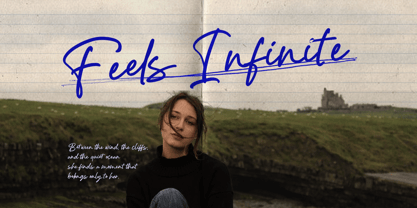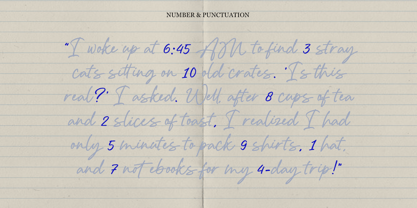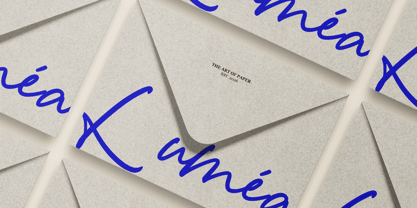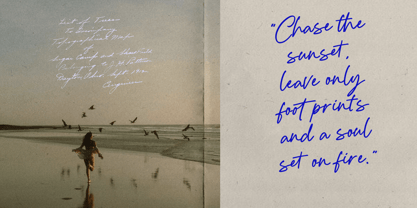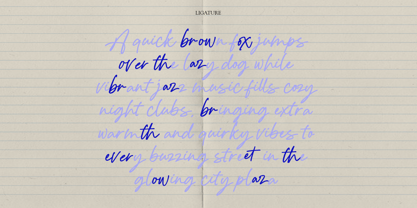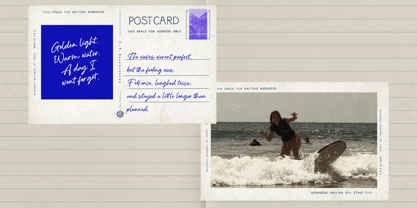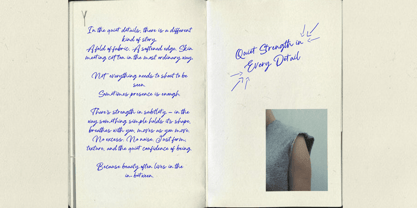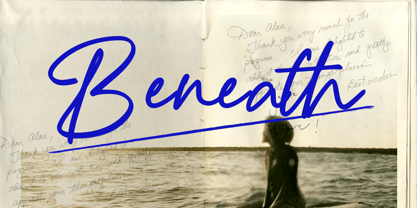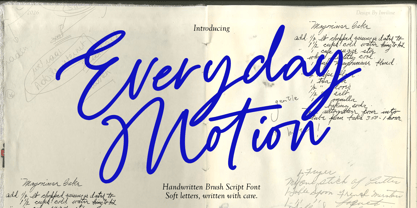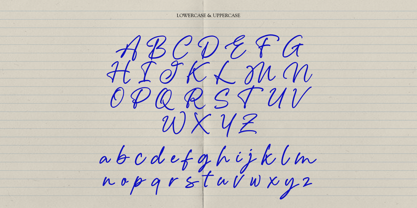
Everyday Motion
by Inviline
Everyday motion is a handwritten brush script font with soft, flowing strokes and a natural rhythm that feels warm, expressive, and personal; you get complete uppercase and lowercase letters, numbers, punctuation, smooth ligatures, stylish alternates, and multilingual support, making it perfect for branding, logo design, wedding invitations, editorial layouts, social media quotes, packaging, postcards, photography watermarks, and any creative project that needs an authentic, effortless handwritten touch.